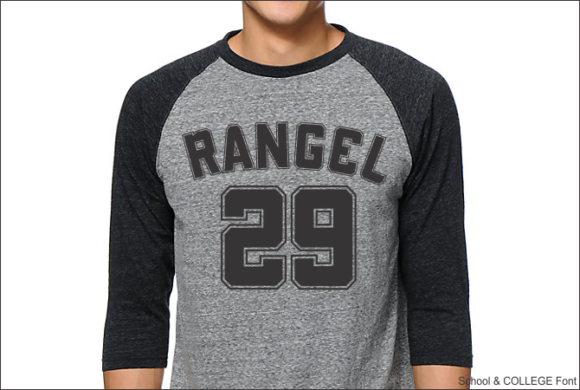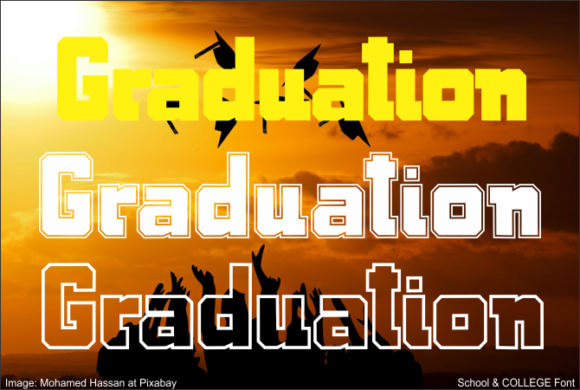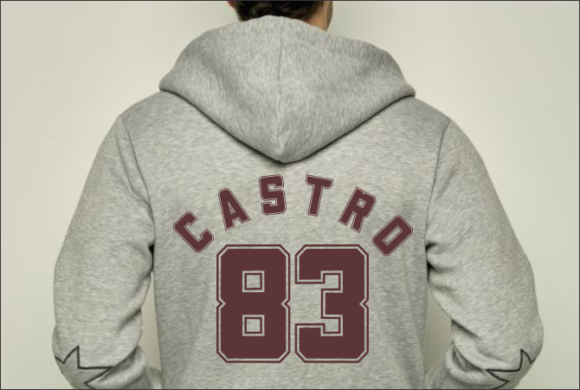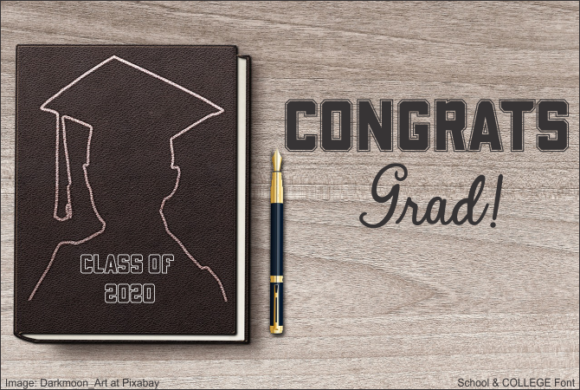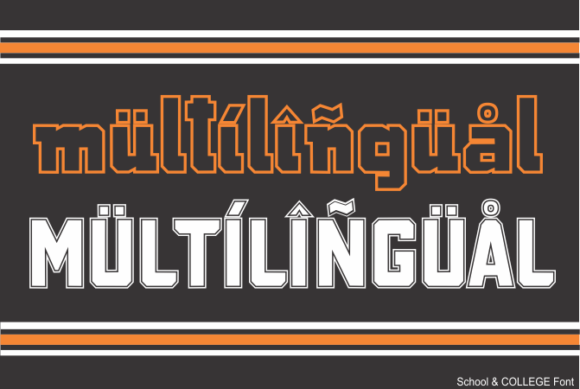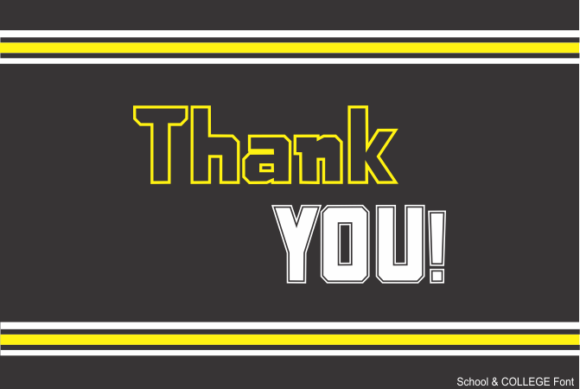
Introduction to School and College Font
School & College is a cool, bold and fierce looking display font.
Add this font to any design that is related to sports, speed and power You will love the results.